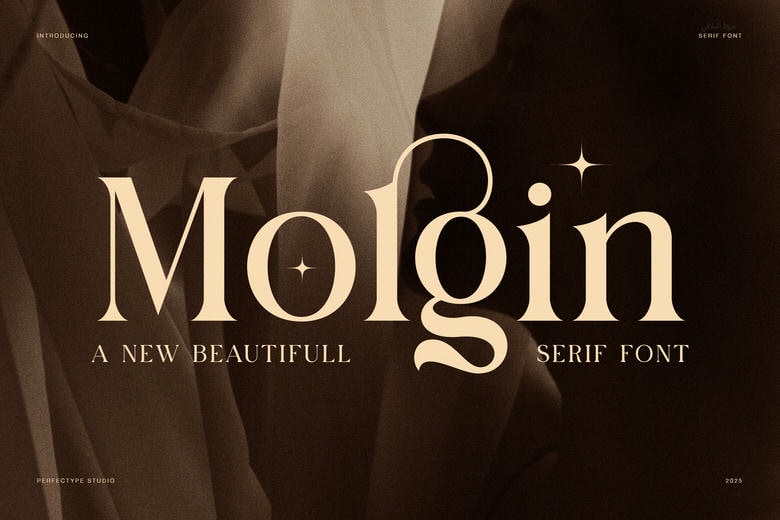
Molgin Font
Molgin is a beautiful serif font that incorporates the traditional sophistication with modern beauty. It was made to match those creators who like balance, refinement and classicism. Due to its beautiful lines and contrast, Molgin conveys a dramatic presence and is nevertheless beautiful to read.
Every letter was drawn out into form. Consequently, the font is natural and is confident in any layout. Its soft lines and design ligatures can be perfectly used in branding, packaging, magazines, and digital material. In addition, its refined appearance is used to put any design project to an immediate uplift.
Molgin Serif Font